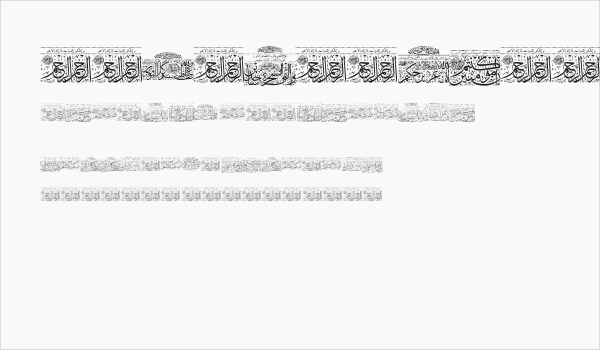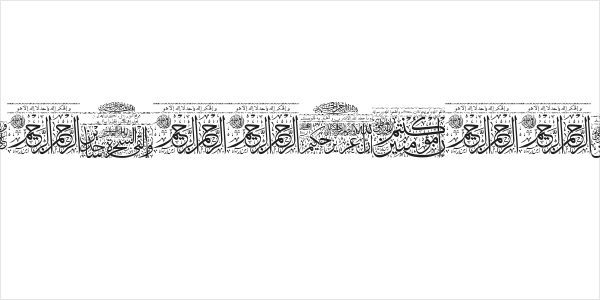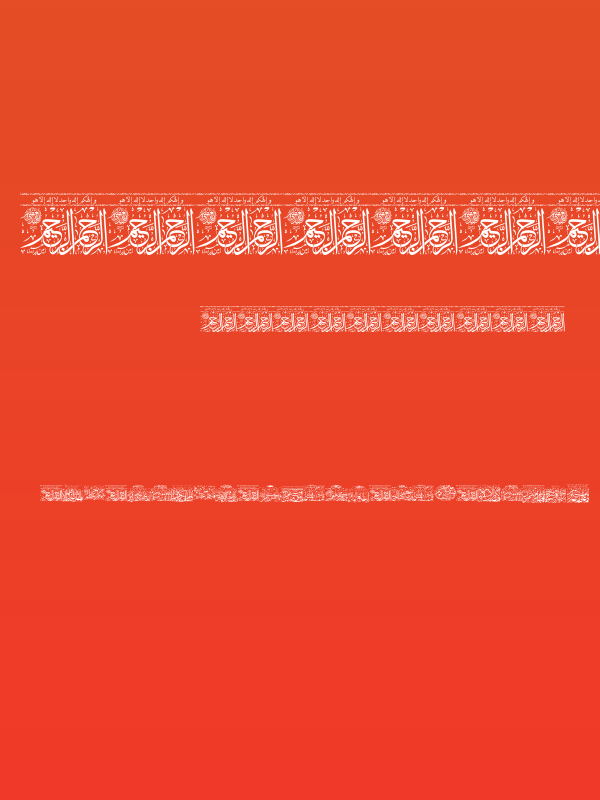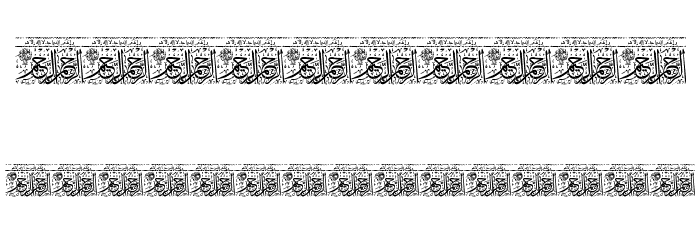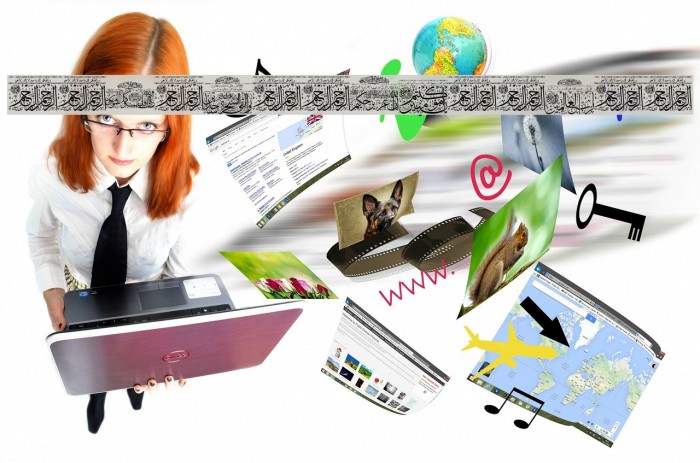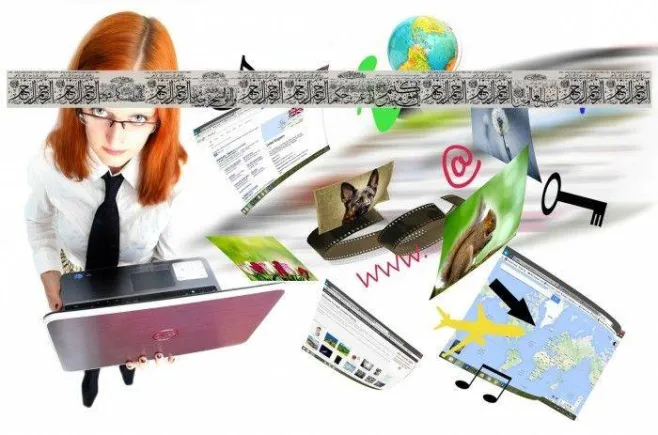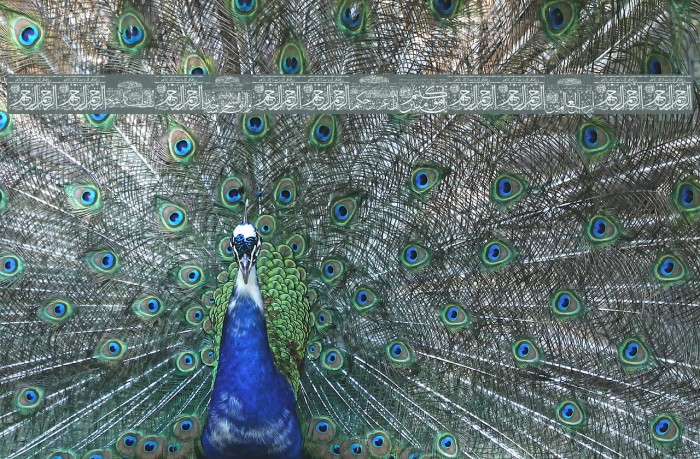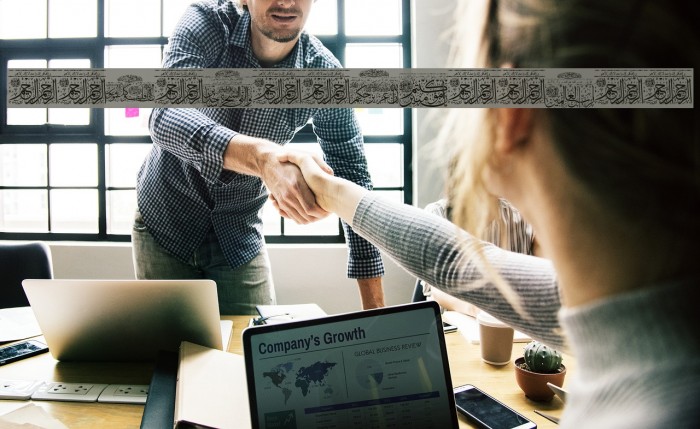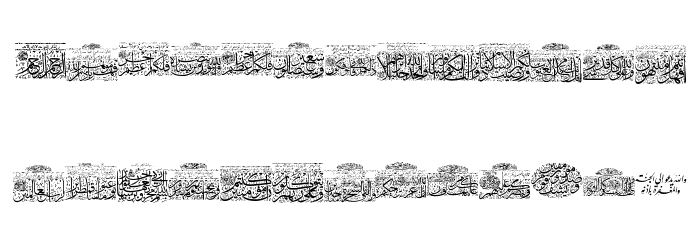
Aayat Quraan 8 Font
✎ Calligraphic
Aayat Quraan 8 Description
Highly decorative Arabic script with intricate borders and flourishes, featuring traditional calligraphic elements and ornate detailing, often used in religious or ceremonial contexts.
| Categories | Calligraphic |
| Overall Style | Decorative, Traditional, Religious |
| Use Case | Religious texts, Artworks, Decorative borders, Ceremonial documents |
| Proposed Projects | Religious manuscripts, ceremonial documents, decorative panels, Islamic art, Quranic verses, architectural inscriptions. |